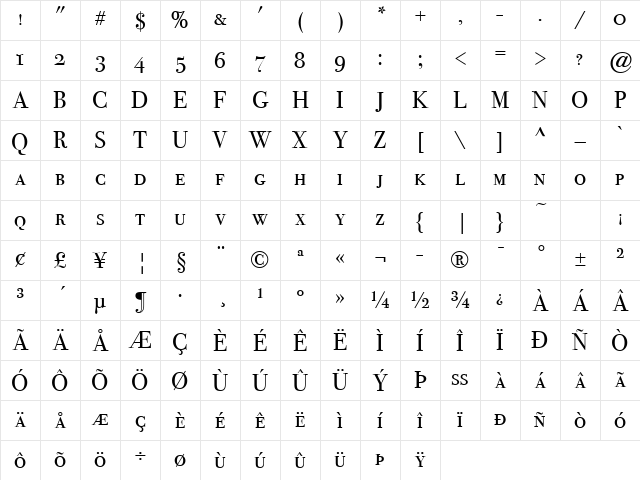
Bodoni 72 Smallcaps Book
Design Context for Bodoni 72 Smallcaps
Bodoni 72 Smallcaps is a composed and adaptable typeface that performs quietly and consistently across a wide range of design contexts.